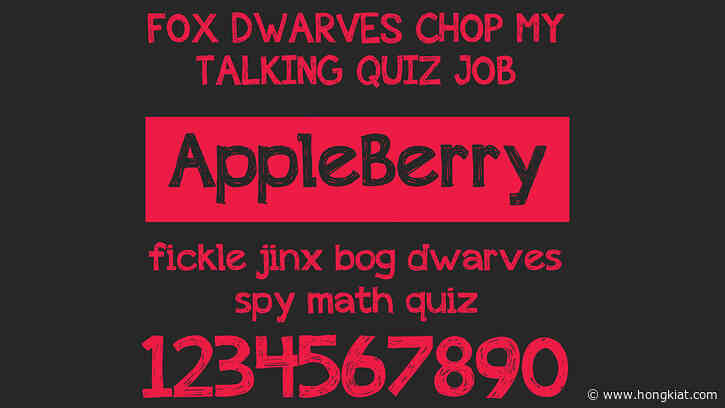
Chalk fonts bring a touch of nostalgia and creativity to any design. In this article, we’ve compiled a list of over 20 chalk fonts that you can download for free. These fonts mimic the texture and spontaneity of chalk writing, adding a playful and creative touch to your projects.
Whether you’re working on a restaurant menu, a classroom-themed design, or a creative project, these chalk fonts will add a unique and fun element to your work. With their varied styles and textures, these f